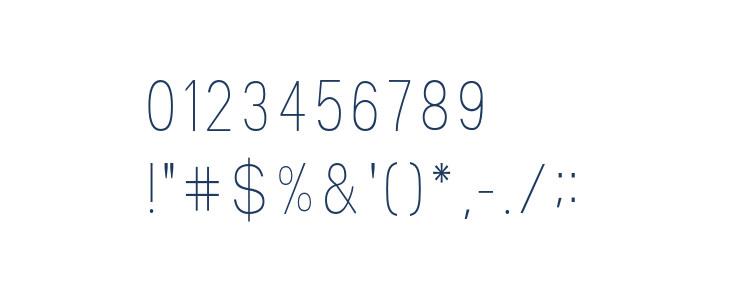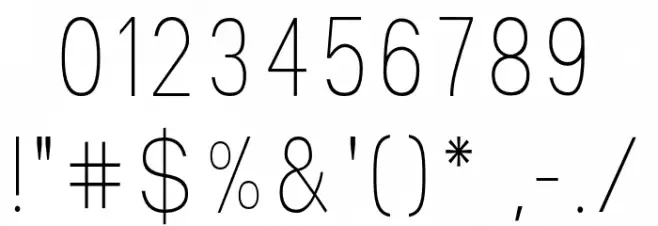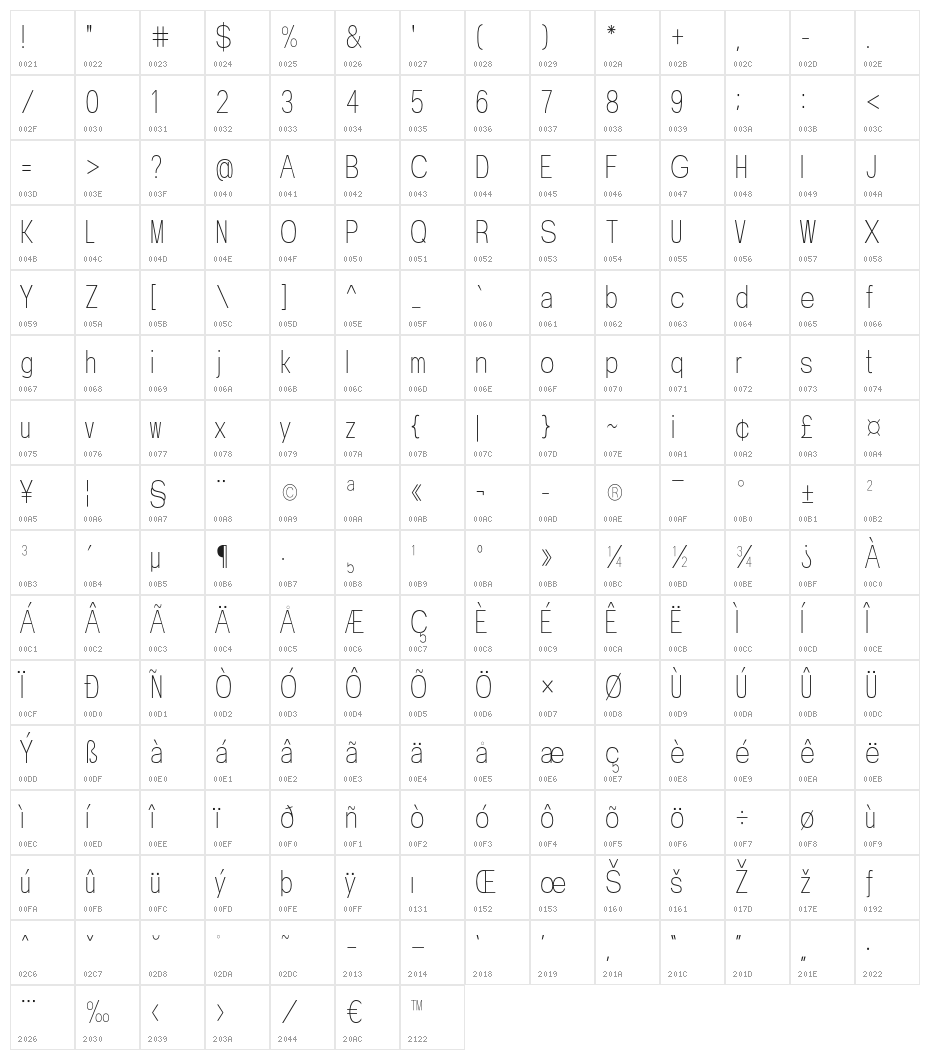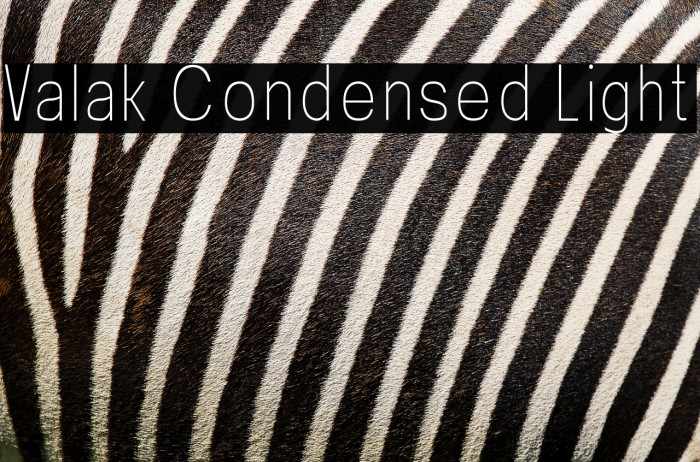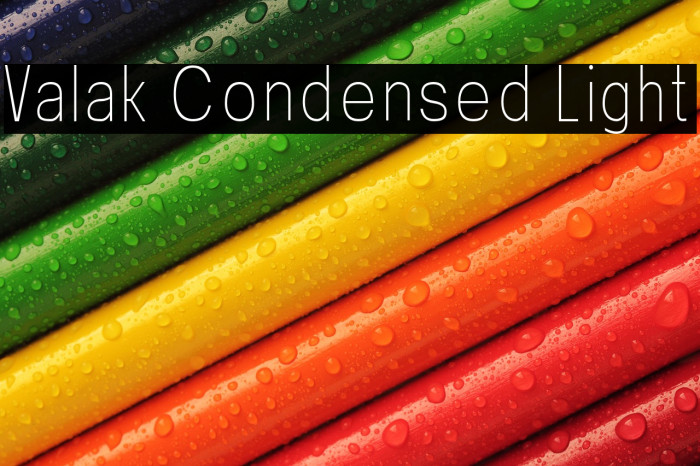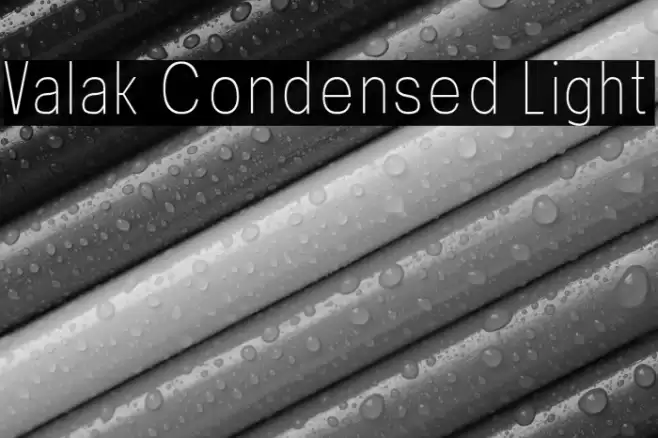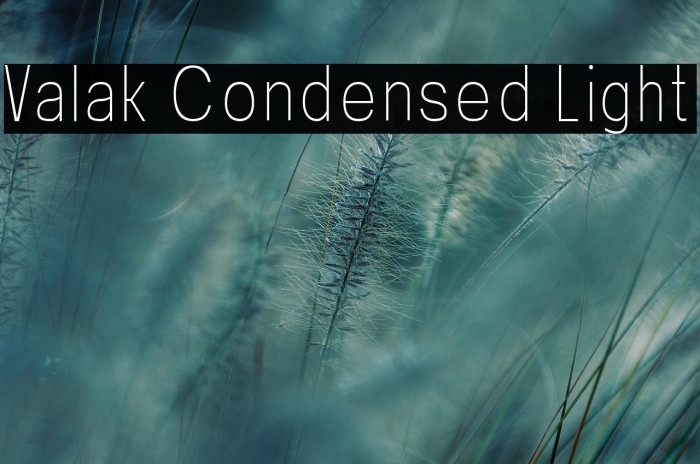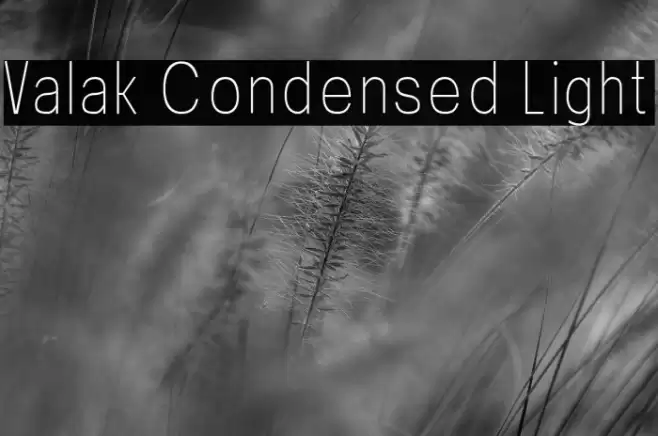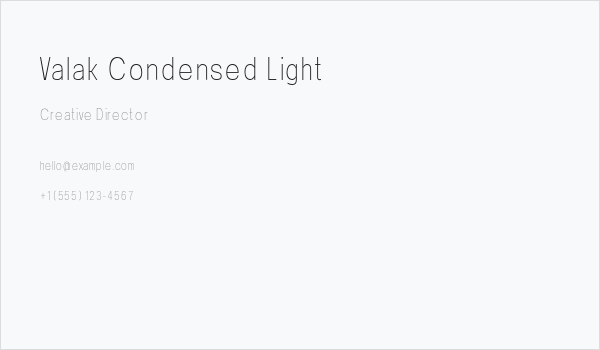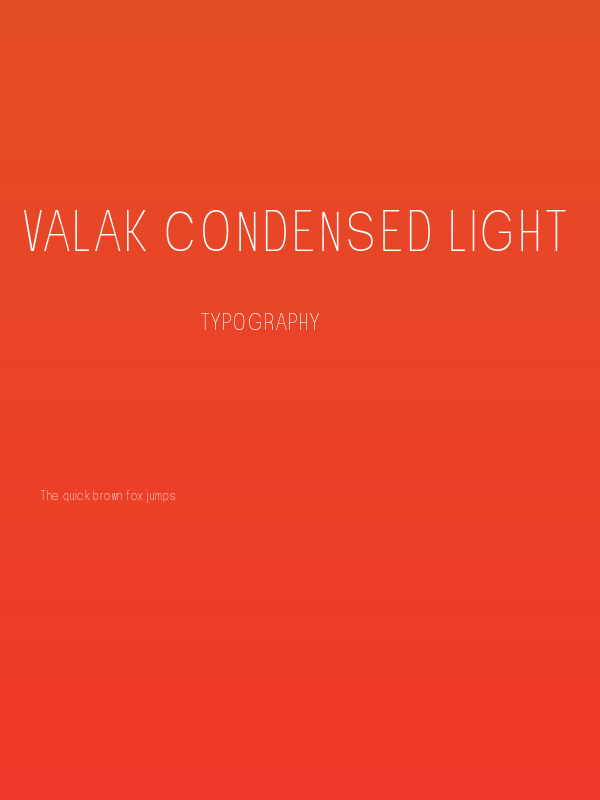
Valak Condensed Light Font
Valak Condensed Light Description
This font features a clean and modern design with a condensed structure, making it ideal for space-saving applications. The characters are uniformly thin, contributing to a light and airy appearance. The uppercase letters are tall and elegant, while the lowercase letters maintain a consistent height, enhancing readability. The numerals are straightforward and align well with the overall minimalist aesthetic. Special characters are designed with simplicity in mind, ensuring they blend seamlessly with the rest of the font. This font's clarity and precision make it suitable for a variety of design projects.
| Proposed Projects | Ideal for modern branding, minimalist posters, editorial layouts, and digital interfaces where space is limited. |